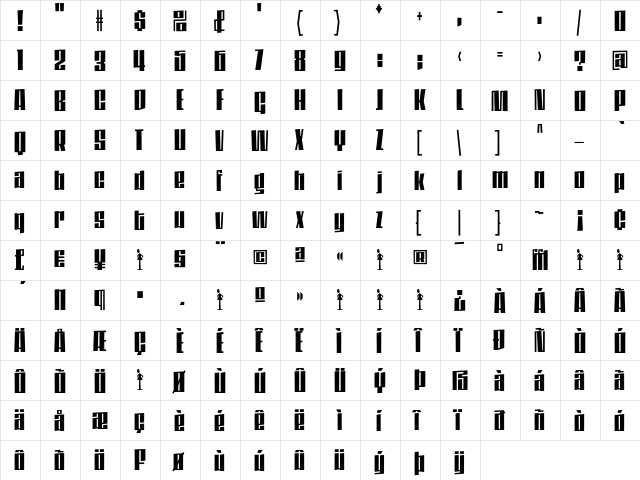
DaleysGothic Bold
Design Context for DaleysGothic Typeface
DaleysGothic has the quiet confidence of well-executed sans-serif typography: versatile, unobtrusive, and dependable at any size. The heavy weight commands attention and anchors typographic hierarchies.
Well-suited to navigation labels, product packaging, and anywhere legibility at scale is essential.
Font Pairing: Use DaleysGothic for headlines alongside a lighter-weight sans or serif for body copy to establish clear visual hierarchy.
Pro Tip: Use DaleysGothic for UI labels, navigation, and short-form body copy where clean legibility is the priority.